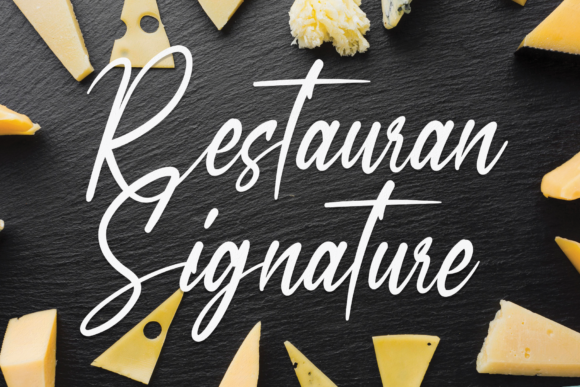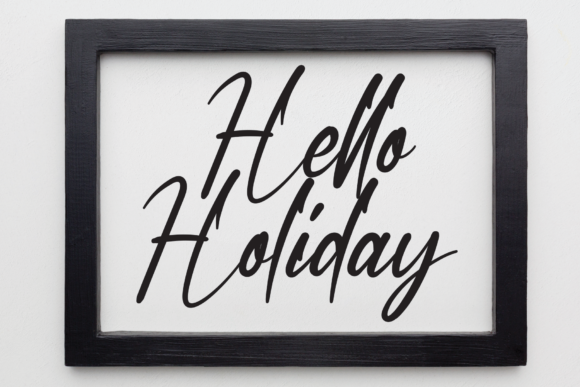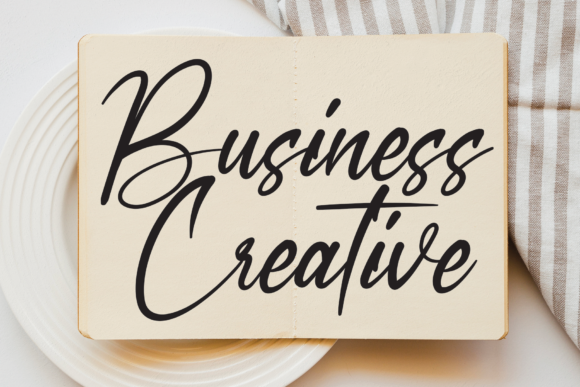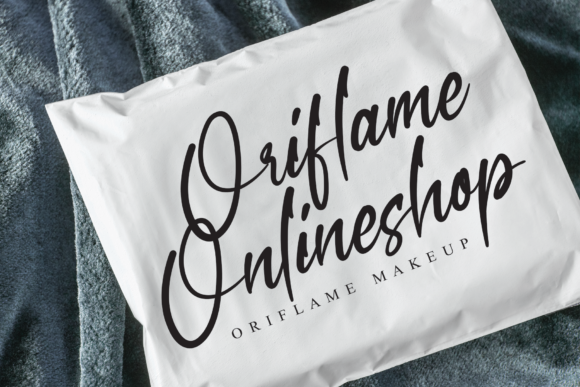
Introduction to Amellia Benitta Font
As a designer, there’s nothing quite like the thrill of seeing a project come together – the perfect balance of color, texture, and typography. It’s a feeling that’s hard to replicate, but one thing’s for sure: the right font can make all the difference. For those looking to add a touch of elegance to their next creative project, we’re excited to introduce the Amellia Benitta Font – a stunning handwritten font that’s sure to impress.
With its high-quality design and versatility, the Amellia Benitta Font is the perfect addition to any designer’s toolkit. Whether you’re working on a project with a transparent background or a bold, eye-catching headline, this font is sure to shine. And the best part? It’s a valuable resource that’s available for free download, making it accessible to designers of all levels.
Key Features of Amellia Benitta Font
- Includes a range of font styles and sizes to cater to various design needs, from headings to body text.
- Perfect design resource for graphic designers, digital artists, and creatives working on a wide range of projects.
Honest Review: Amellia Benitta Font
I recently had the chance to work with the Amellia Benitta Font for a creative project, and I must say it’s been a game-changer. This high quality font is perfect for designers looking to add a touch of elegance and sophistication to their designs.
What works well: ✨ The Amellia Benitta Font is incredibly versatile and can be used for a variety of projects, from wedding invitations to corporate branding. The transparent background makes it easy to overlay on images and other design elements. The font is also available for free download, making it a valuable resource for designers on a budget.
What doesn’t: ⚠️ While the font is high quality, it’s not as extensive as some other font packs on the market. The character set is limited, which may be a drawback for designers working on projects that require a wide range of characters.
- High quality and versatile design
Overall, I’m impressed with the Amellia Benitta Font and would definitely recommend it to designers working on creative projects. While it may have some limitations, its high quality and versatility make it a valuable resource for any design team.
Use Amellia Benitta Font on a transparent background to add a touch of elegance to your design.
Combine it with other design resources to create a unique and eye-catching visual identity.
Amellia Benitta Font is ideal for:
Creating eye-catching social media graphics
Designing business cards and letterheads
Adding a touch of sophistication to presentations and reports